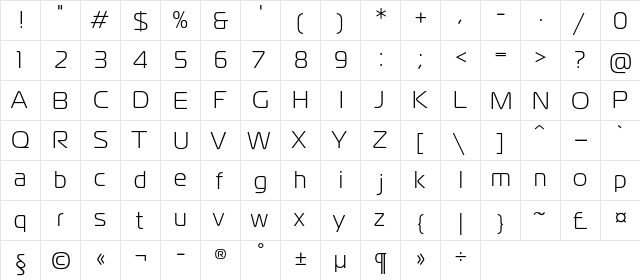
MagistralC Regular
Design Context for MagistralC Typeface
MagistralC takes a measured approach to typography — its balanced proportions and neutral character make it a reliable workhorse for both digital and print work.